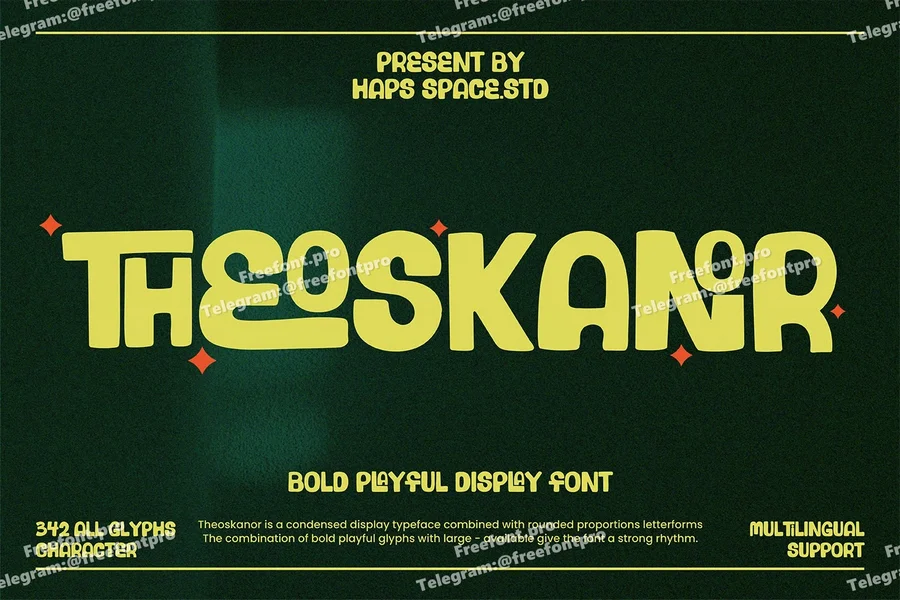
Theoskanor Bold Playful Display
Theoskanor is a bold and condensed display font designed with rounded, playful letterforms that give off strong rhythm and high energy. Perfect for designs that aim to stand out, this font combines retro aesthetics with modern fun—making it great for bold headlines, eye-catching posters, and branding with attitude.
Unique Letterforms